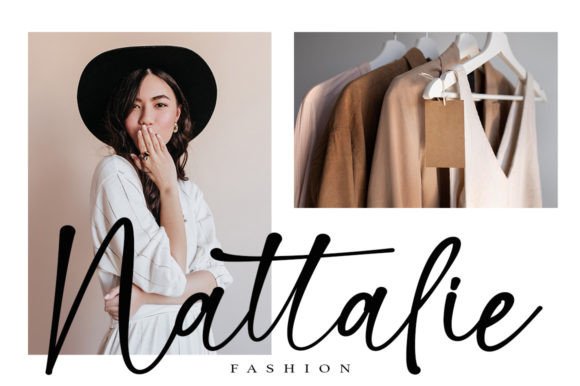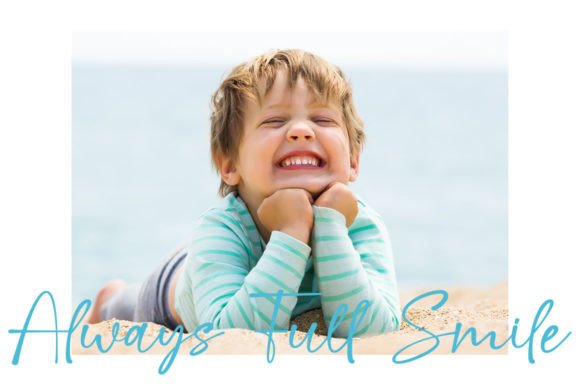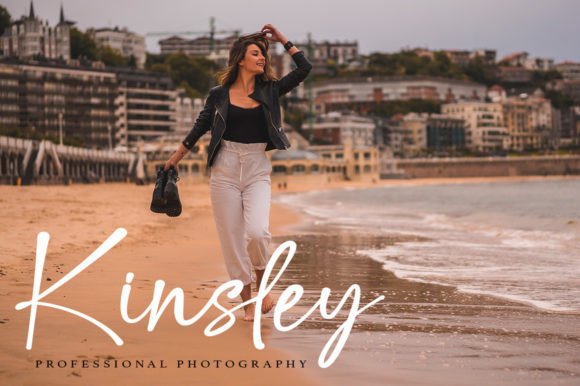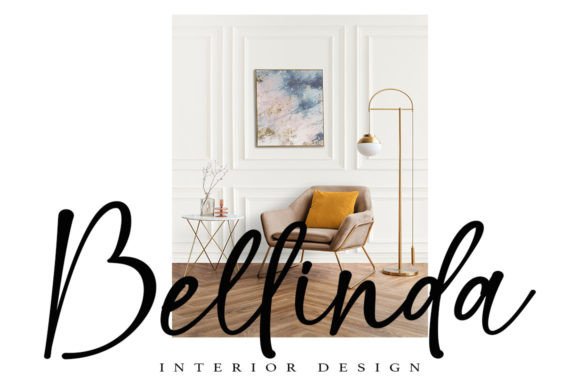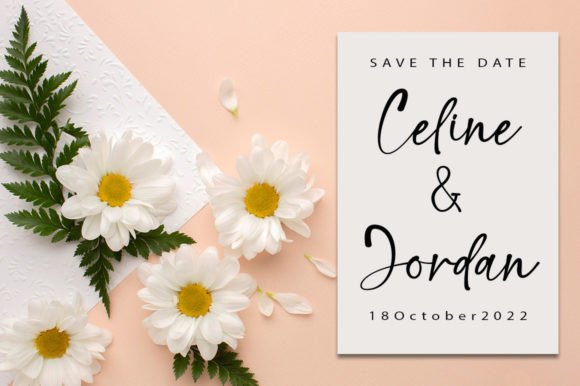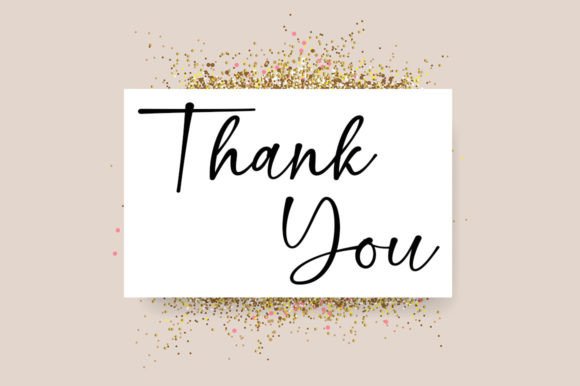
About October Holidays Font
“October Holidays” is a lovely and delicate script font that radiates elegance and class. This font has been meticulously crafted to provide a beautiful and refreshing look to your designs, making it a perfect choice for those seeking to infuse a sense of sophistication into their creative projects.
The charm of “October Holidays” lies in its delicate and elegant script. Its graceful letterforms and flowing lines create a visually captivating and refined experience, making it an ideal choice for projects that aim to convey a sense of beauty and sophistication.
One of the standout qualities of “October Holidays” is its ability to add a touch of elegance to your designs. Whether you’re using it for branding, designing exquisite invitations, crafting memorable quotes, enhancing greeting cards, or working on various other creative projects, “October Holidays” seamlessly integrates into your creative vision.
This font’s dedication to providing a beautiful and refreshing look to your designs sets it apart. Whether you’re working on personal or professional endeavors, “October Holidays” brings a sense of timeless beauty to your work that resonates with a diverse audience.
In summary, “October Holidays” is more than just a font; it’s a refined and elegant creative tool that can elevate your projects. Whether you’re a professional designer or an enthusiast passionate about crafting and design, “October Holidays” is here to make your designs shine with its delicate and elegant script. Embrace the beauty and sophistication of “October Holidays,” and watch your creativity flourish with a touch of timeless elegance.